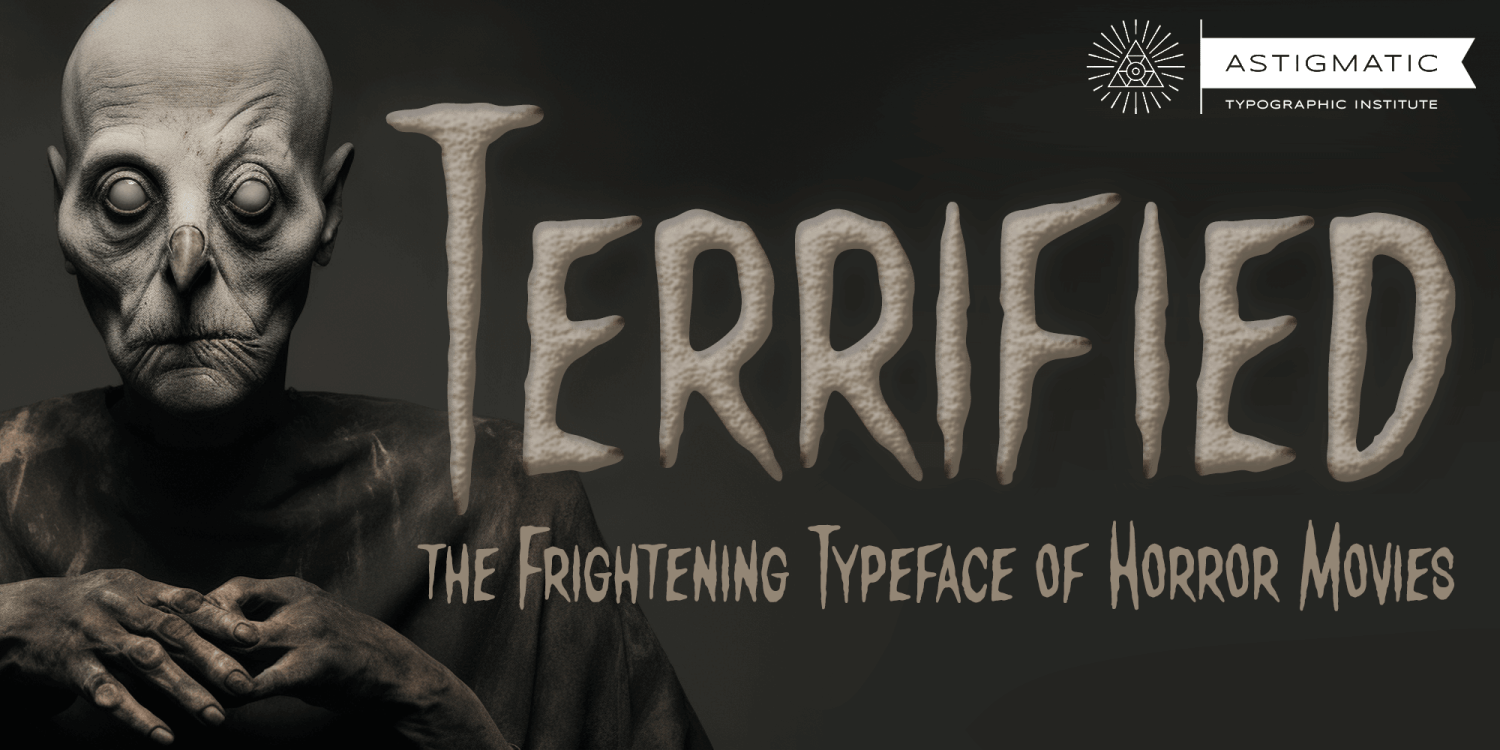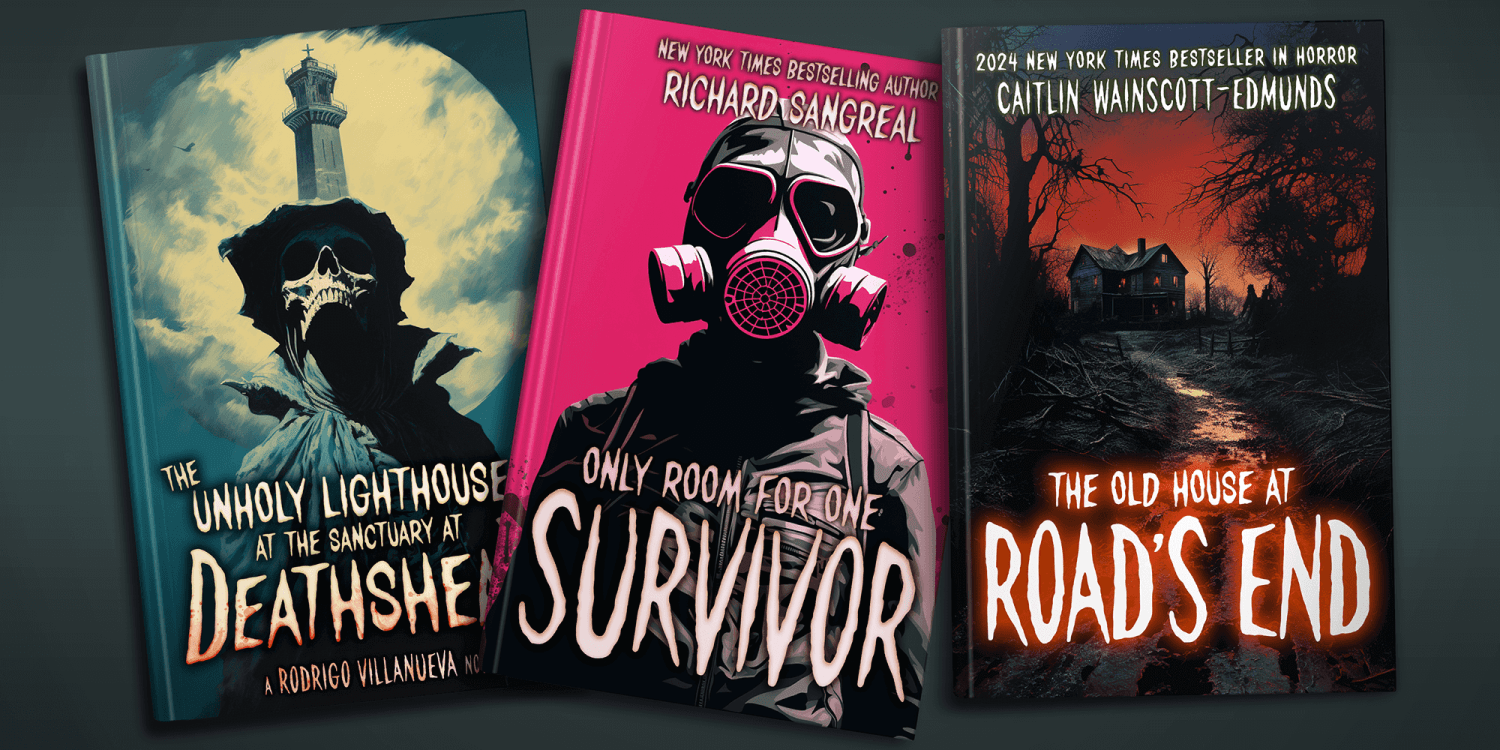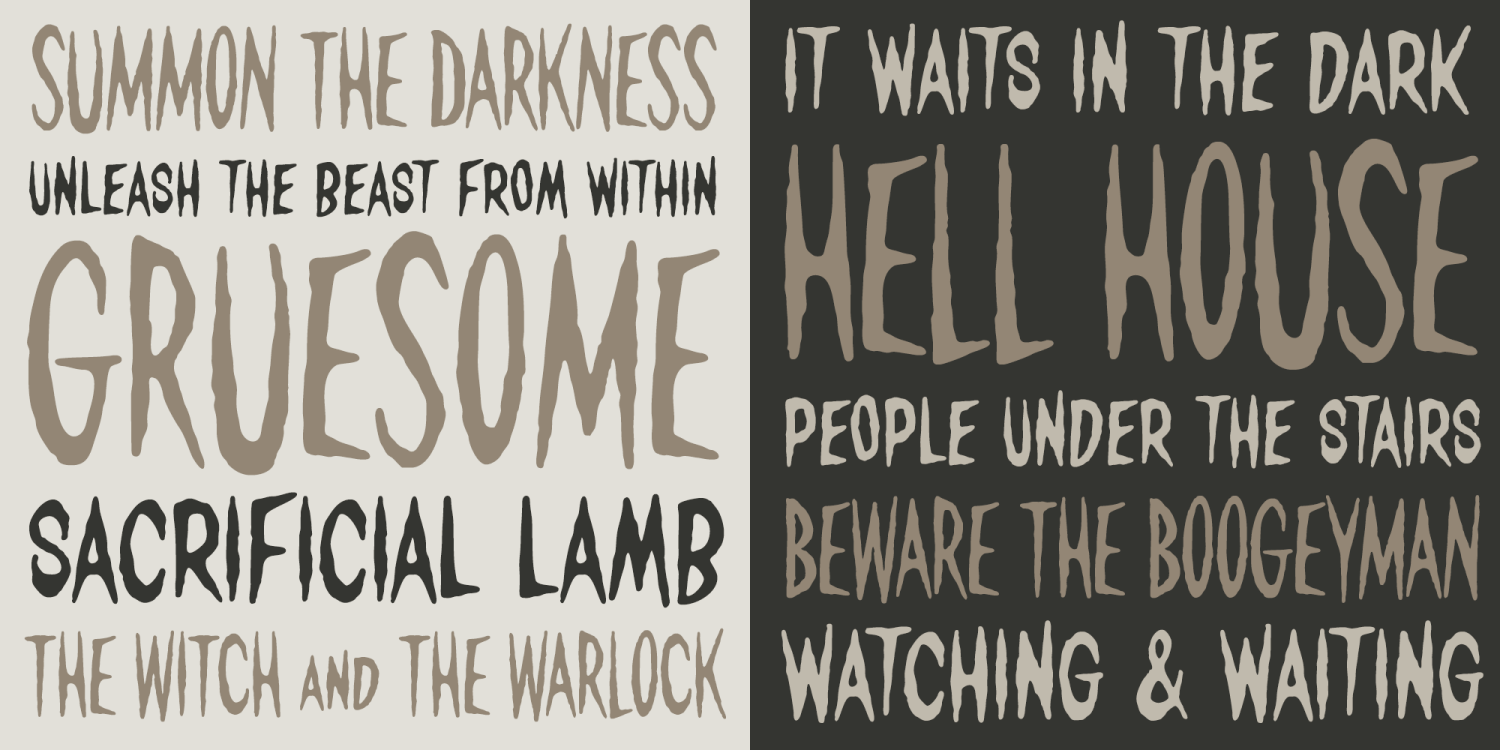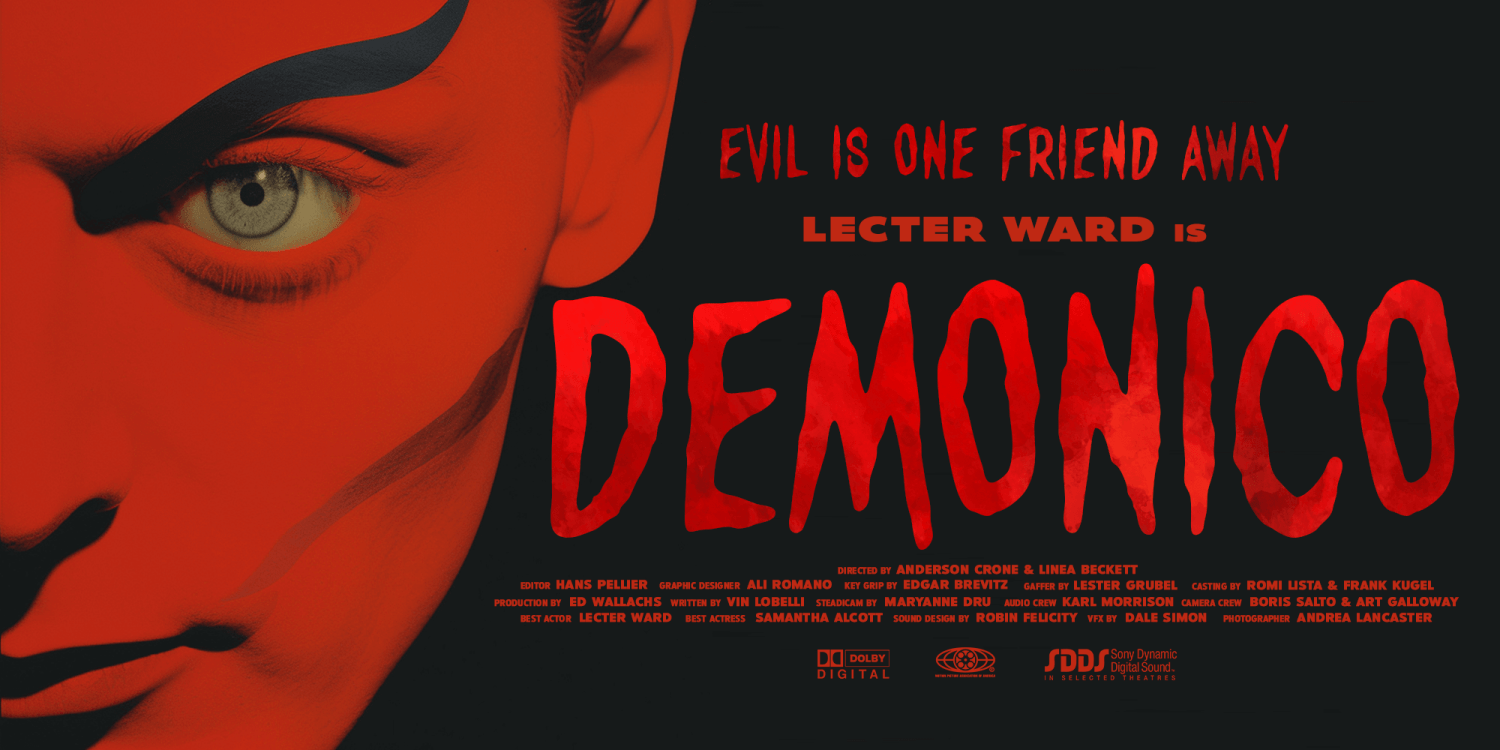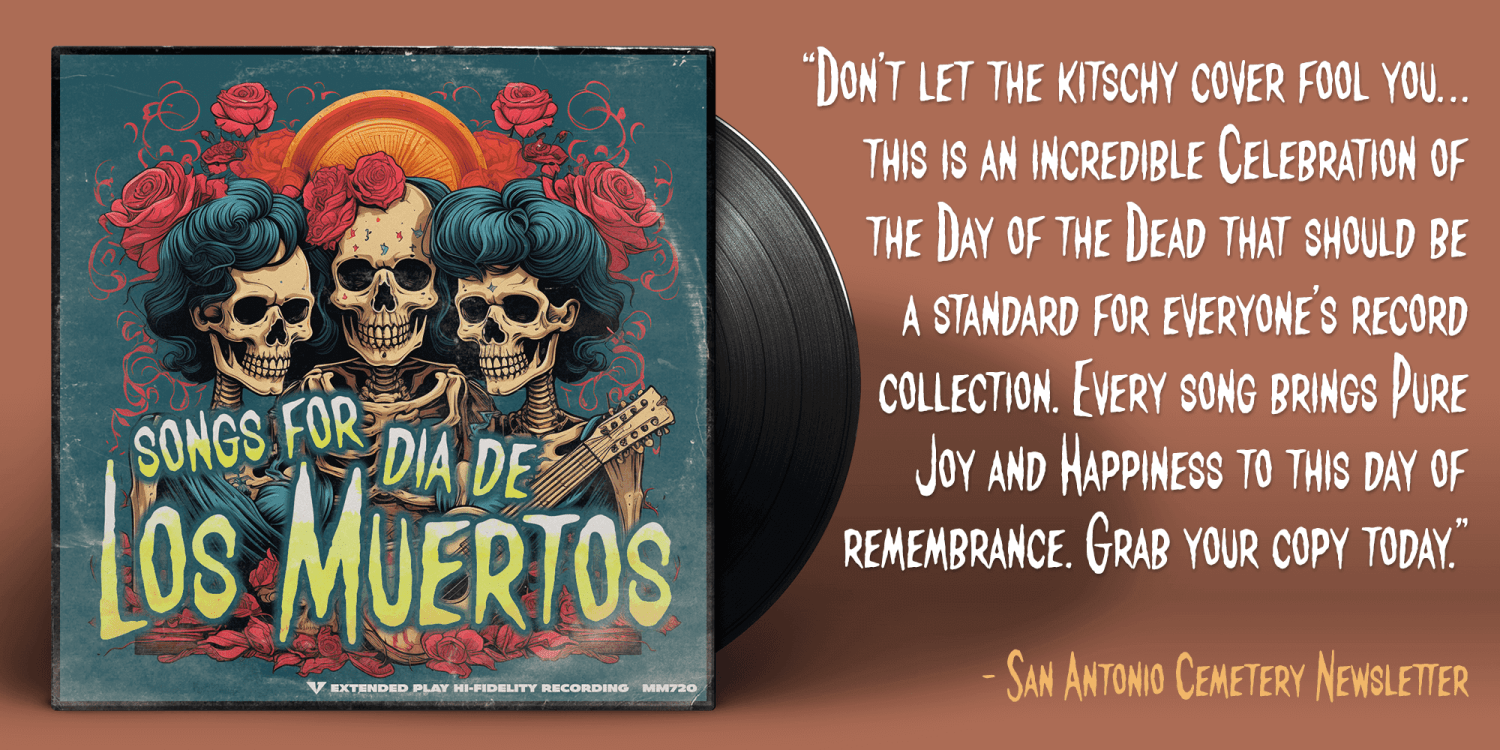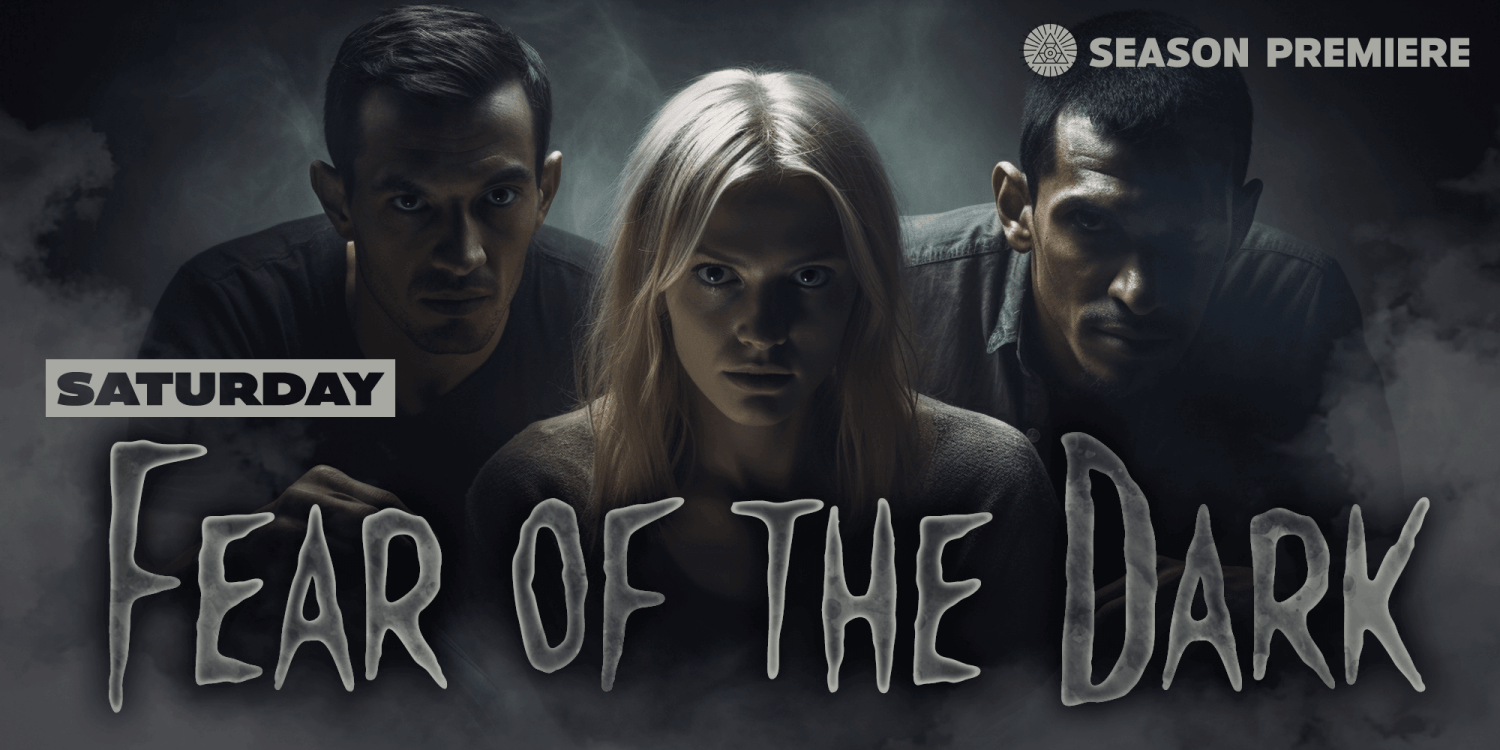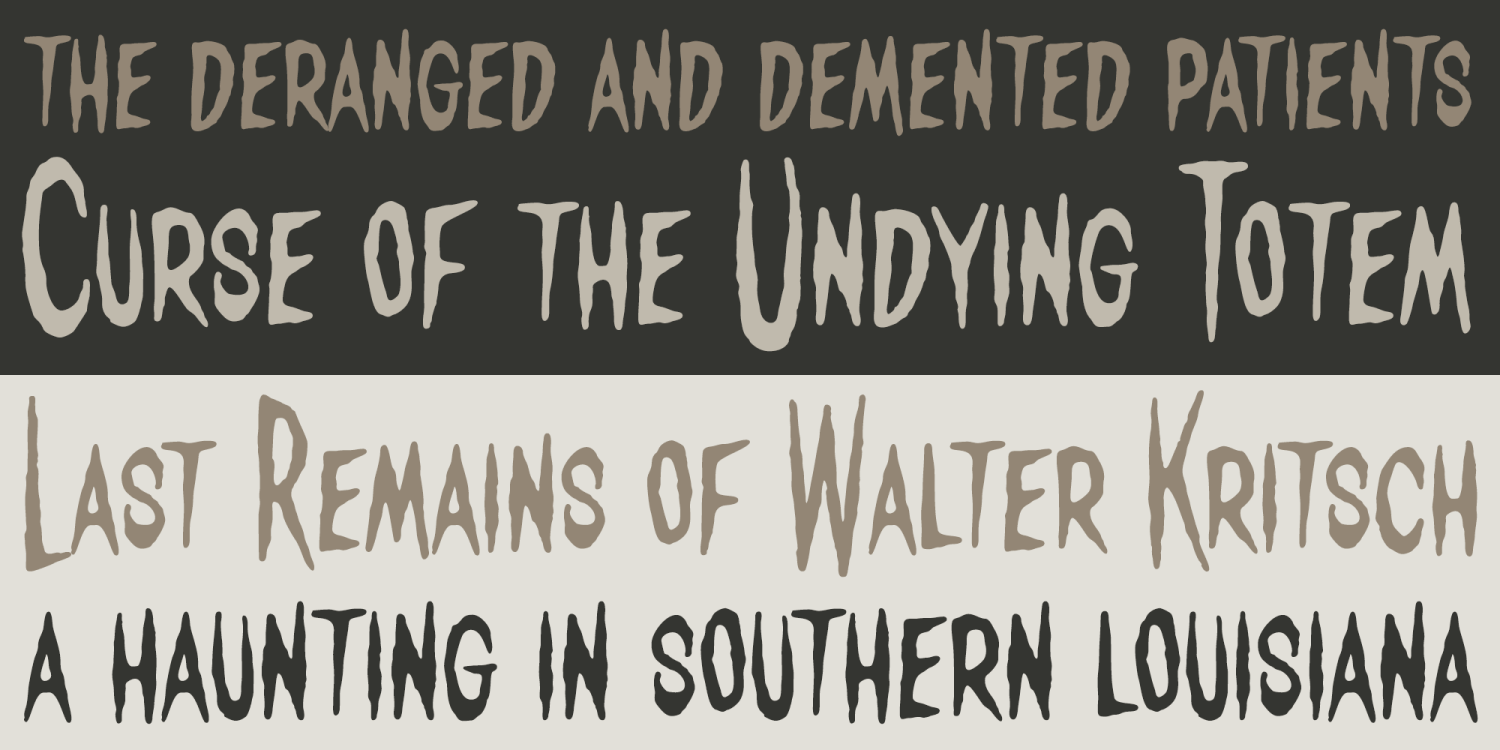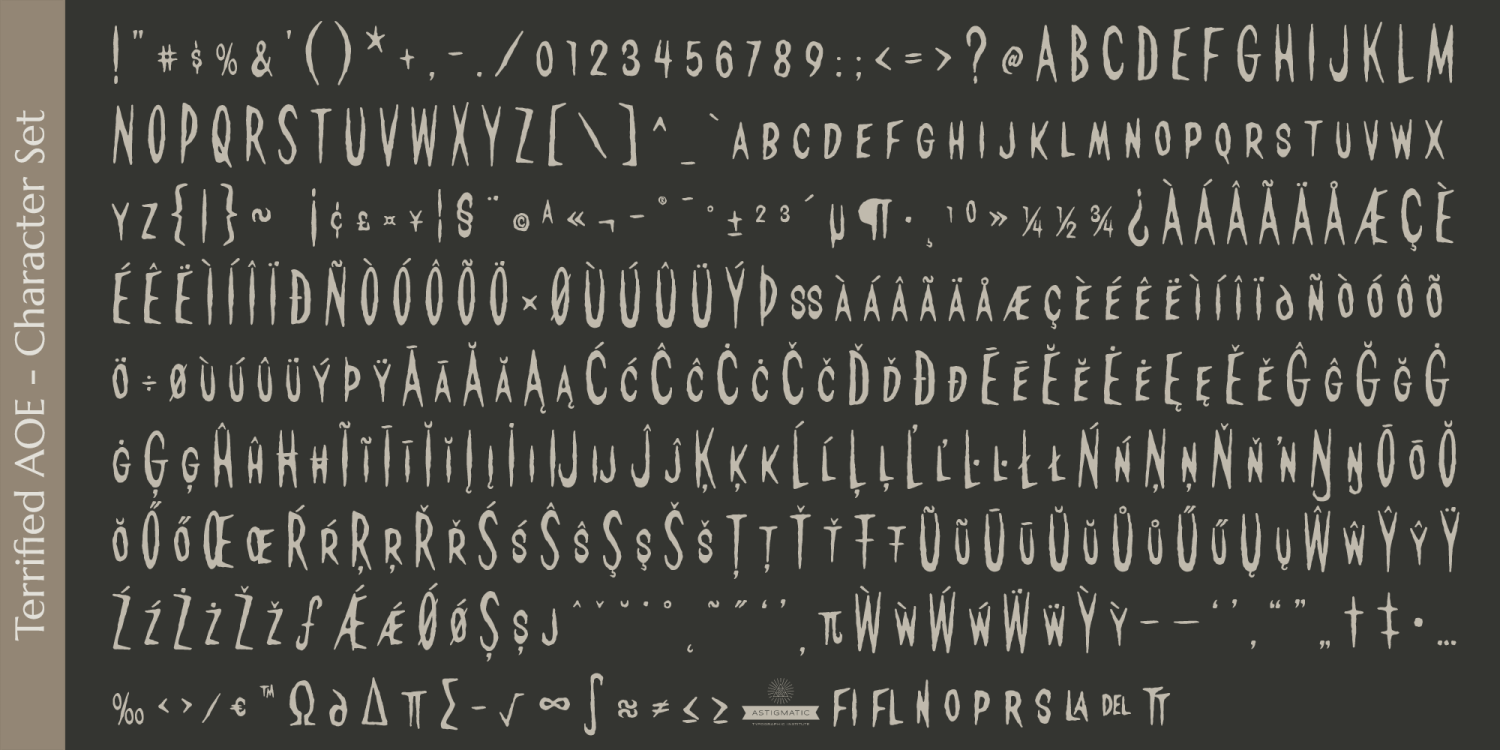
Terrified AOE
Terrified AOE was inspired by vintage horror movie poster titling from the 1960's. It is a Capitals and smallcaps typeface, that really feels like a mix of three typefaces in one. While the Capitals and Smallcaps typesetting works to the effect of the original inspirations, each case also works well amongst itself independently, and having very different vibes. I've always been a huge fan of horror movies, and some of the lettering from vintage horror movie posters are so cool and alive, I only wish there were more of them recreated as display fonts.